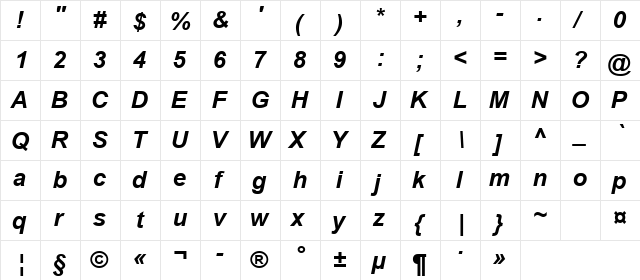
Arial Cyr Bold Italic
Design Context for Arial Cyr Typeface
Arial Cyr offers clean, dependable letterforms without strong stylistic allegiance, making it a practical choice for designers who need flexibility. Its italic angle brings a sense of urgency and motion to the letterforms. Its bold stroke weight gives it real presence on the page.
Pro Tip: Try Arial Cyr for annotation and caption copy alongside an upright companion — the contrast in angle creates a dynamic but ordered typographic system.